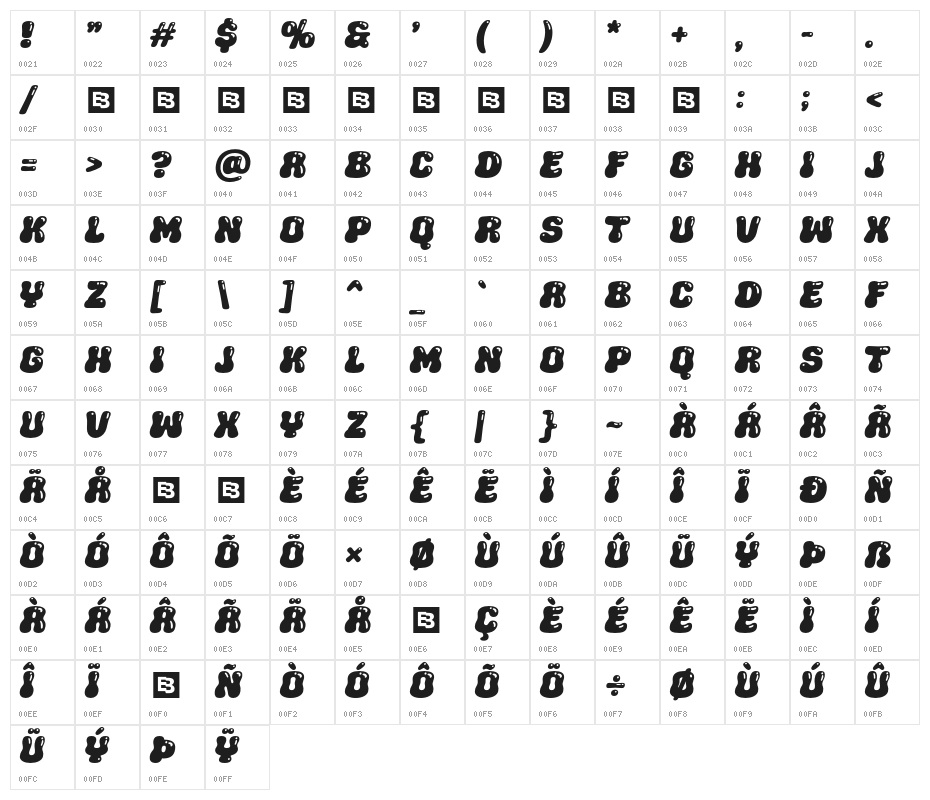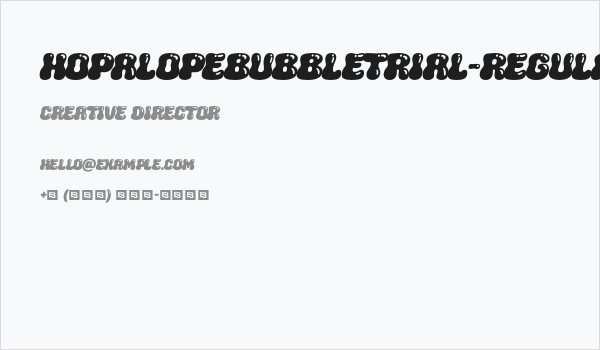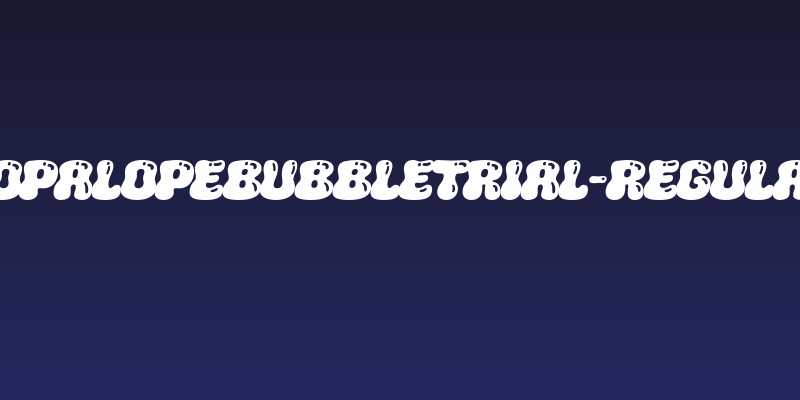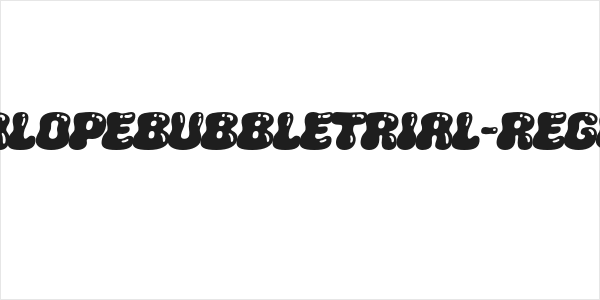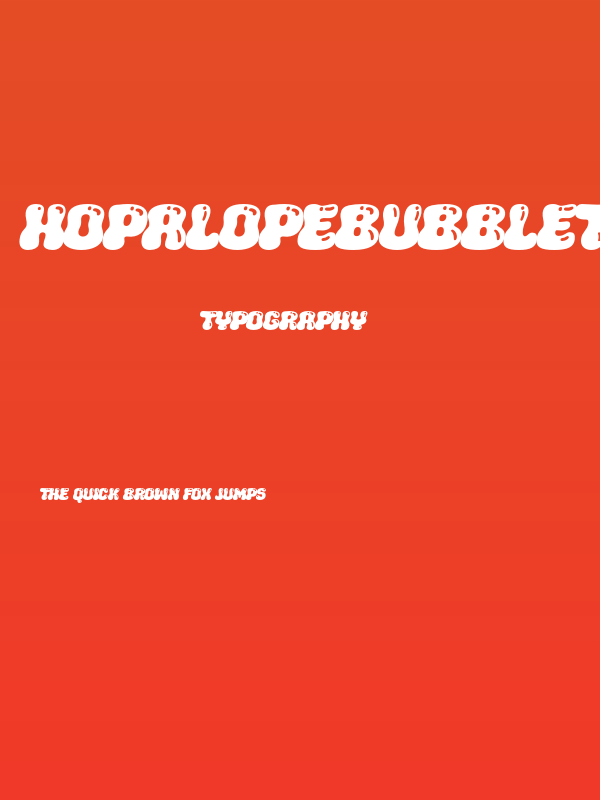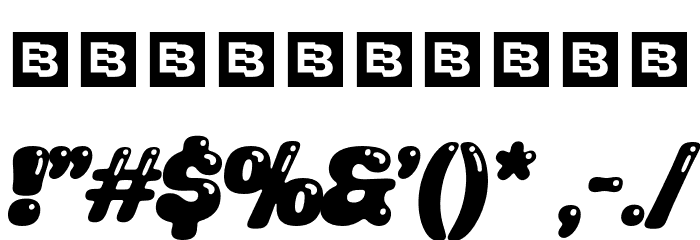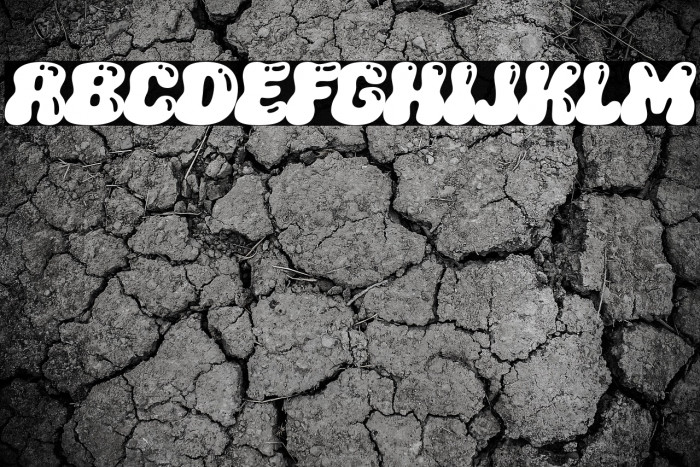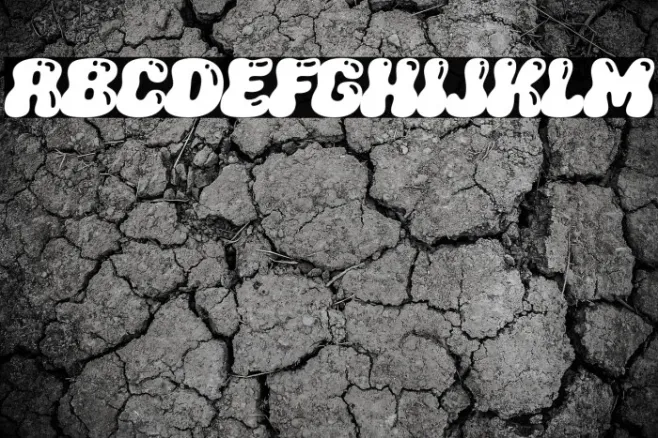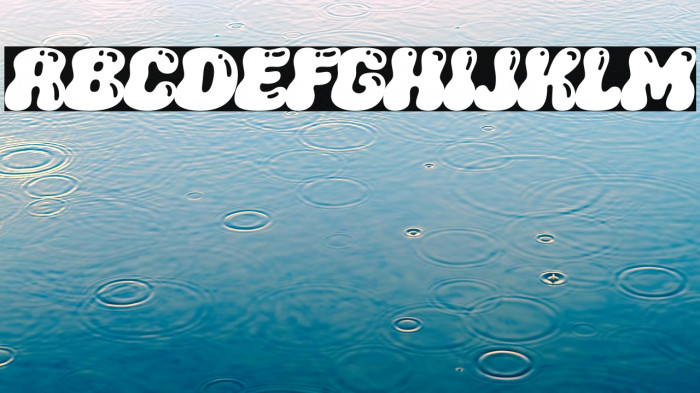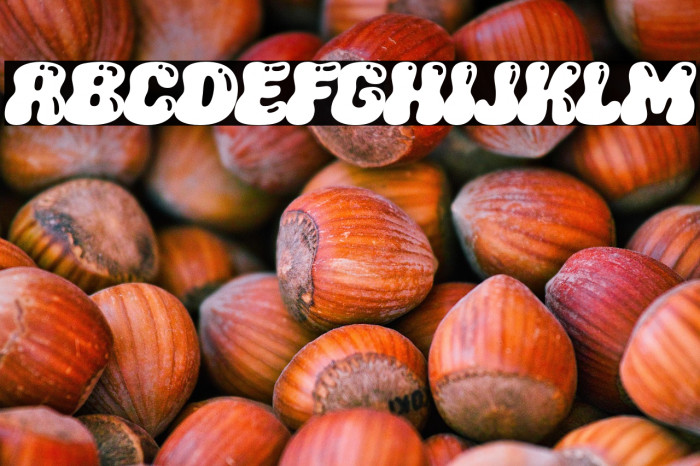
HOPALOPEBUBBLETRIAL-Regular Font
HOPALOPEBUBBLETRIAL-Regular Description
This playful and bold font features a bubbly, rounded design with a whimsical flair. Each character is crafted with a thick, smooth stroke that gives it a soft, inflated appearance, reminiscent of soap bubbles or cartoonish lettering. The font maintains a consistent weight throughout, with rounded edges and a slightly irregular shape that adds to its charm. The characters are tightly spaced, enhancing the cohesive and compact look. This style is particularly eye-catching and suitable for creative and fun projects.
| Overall Style | Playful, Whimsical, Fun |
| Proposed Projects | Ideal for children's books, playful branding, party invitations, and any project requiring a fun, lighthearted touch. |